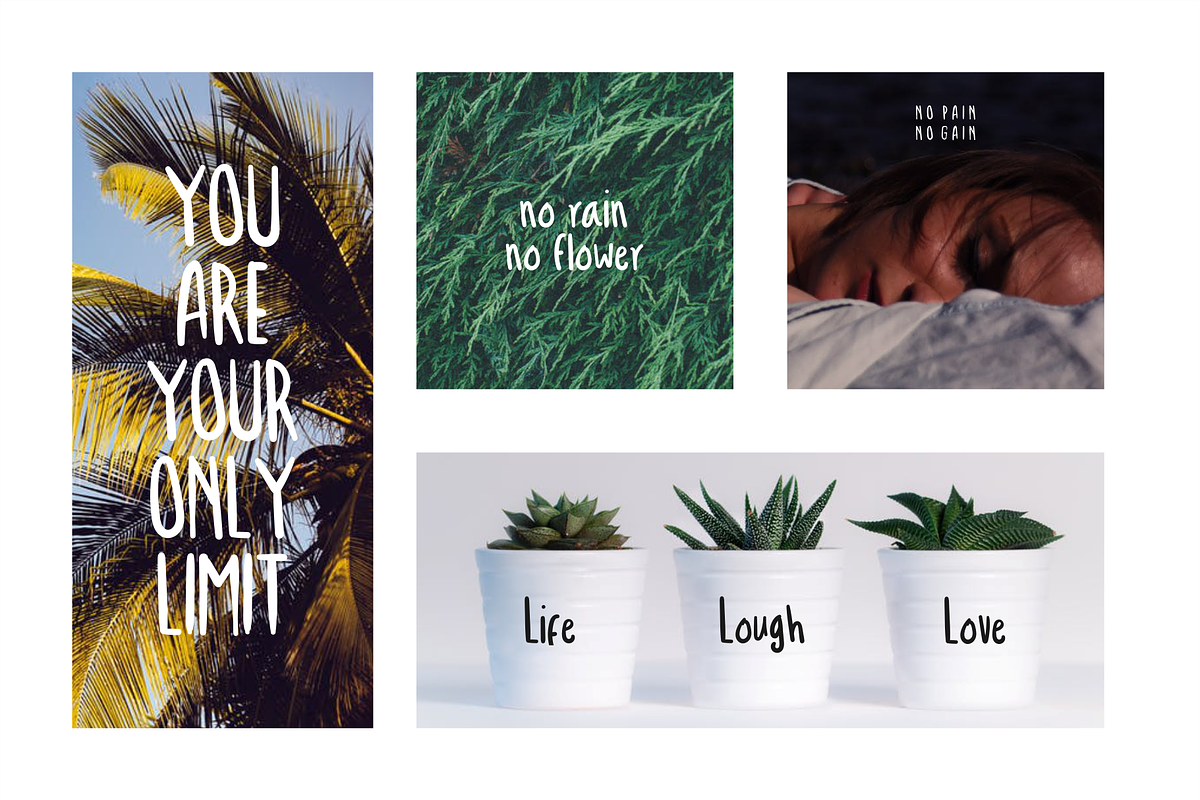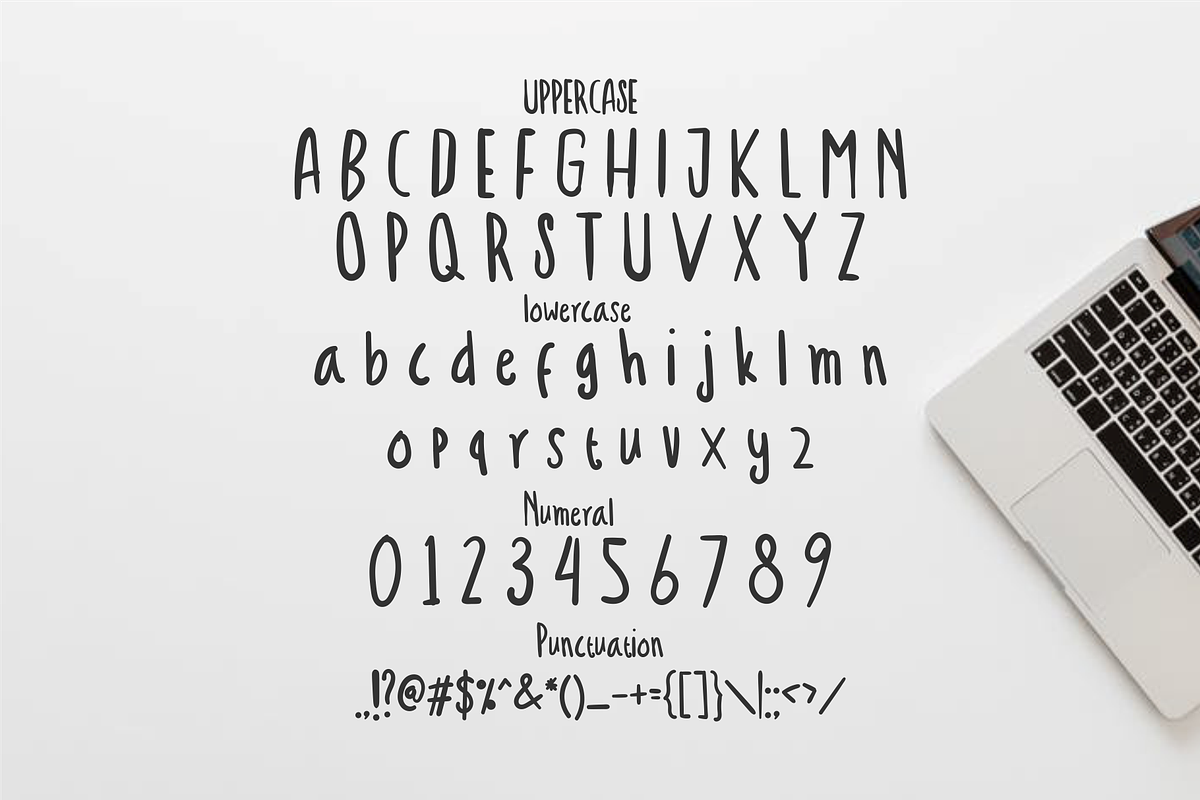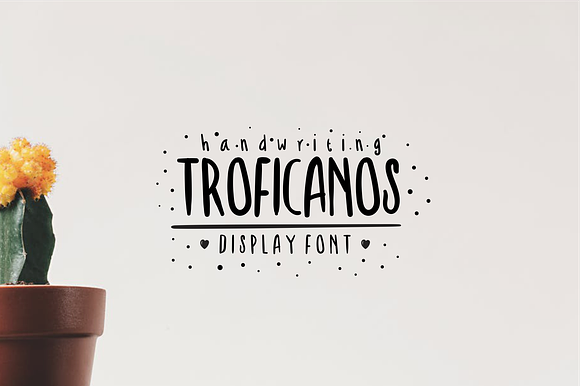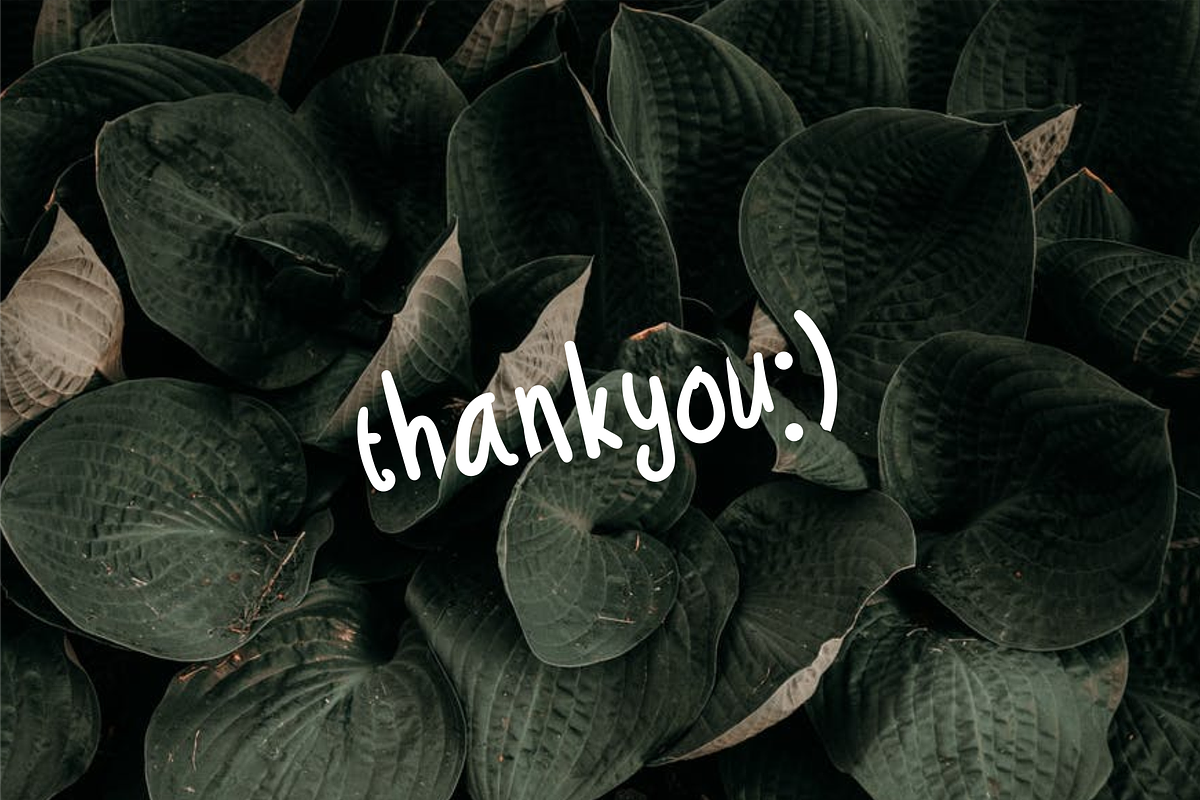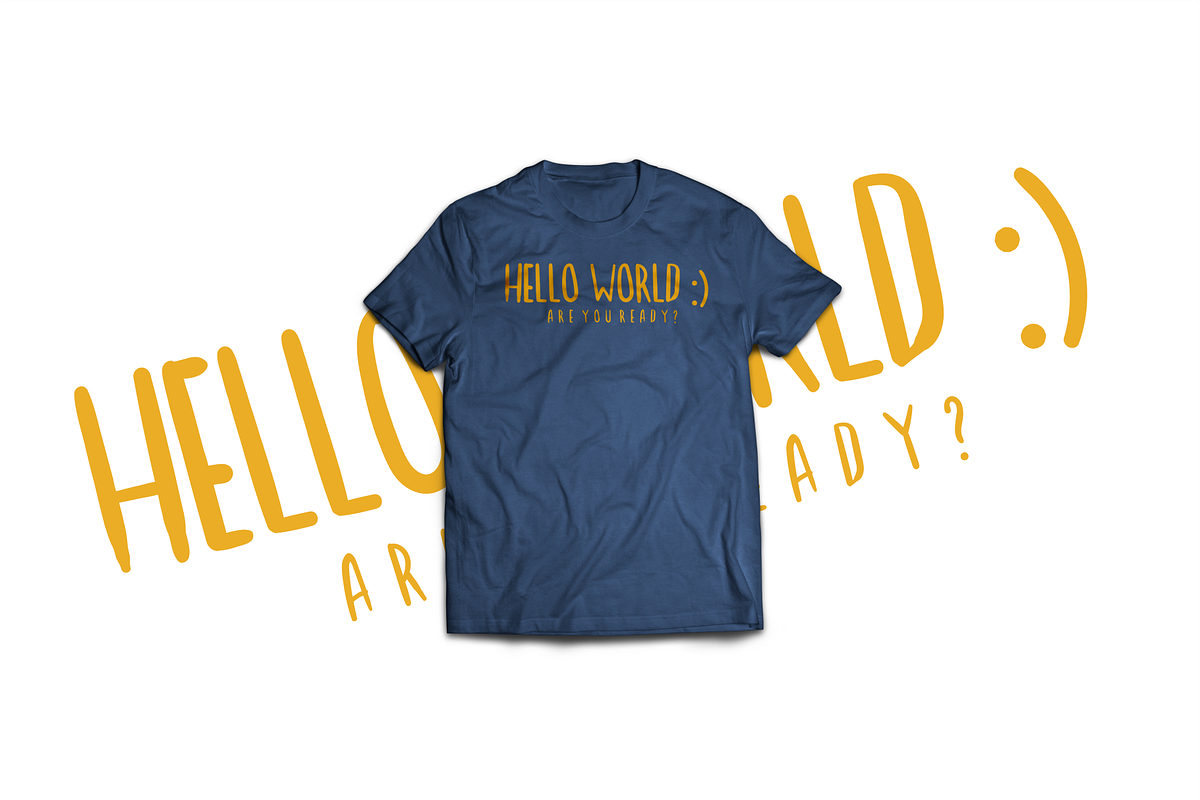
Troficanos Handwriting Display Font
Troficanos is a handwritten font that has a beautiful character, children, good-hearted, perfect for wedding invitations, parties, websites, ads, product labels, or anything that needs a soft and funny touch like the Troficanos font.
Troficanos Handwriting Display Font by 24Design Studios fits naturally into Branding, posters, packaging, typography.